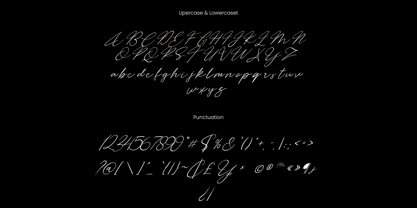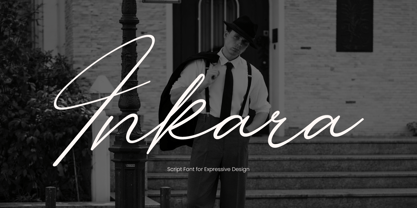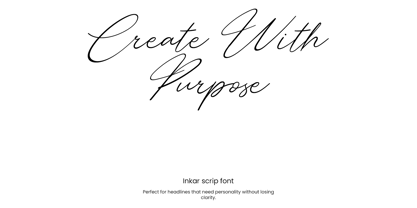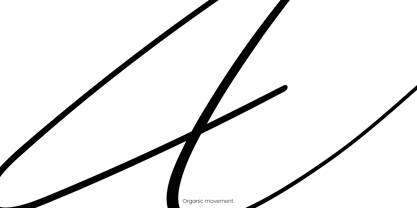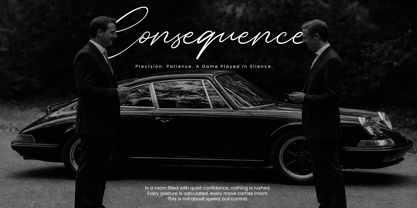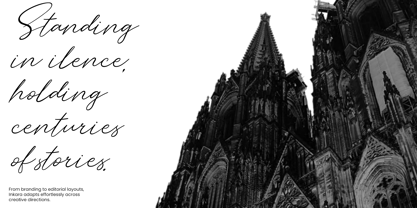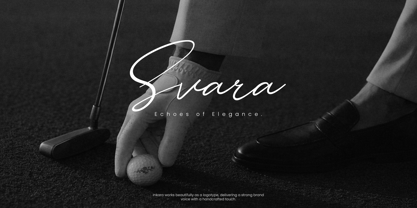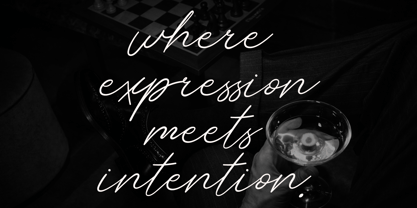
Inkara
by Inviline
The Inkara Font Family was designed by Virgiawan Listanto and published by Inviline. Inkara contains 1 styles. More about this family
Inkara is a signature-style script font that delivers effortless elegance and confident expression, featuring a full set of uppercase and lowercase characters, numbers, punctuation, and extended multilingual support; ideal for modern branding, personal logotypes, packaging design, social media visuals, wedding stationery, editorial headlines, and premium product labels—all crafted to elevate any design that demands style, intention, and clarity with a handcrafted personal touch.
Designers: Virgiawan Listanto
Foundry: Inviline